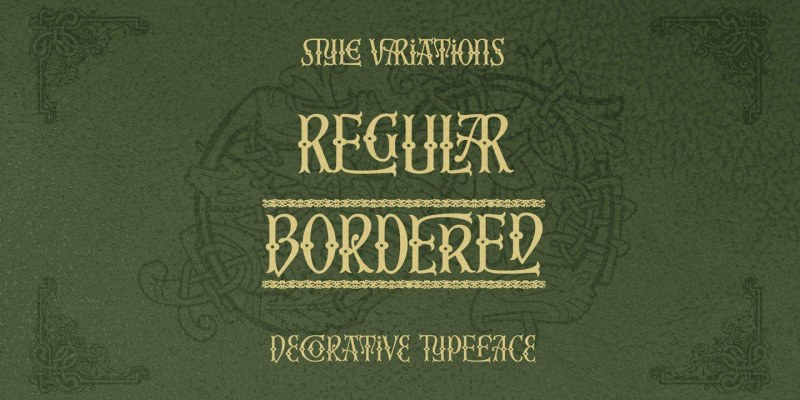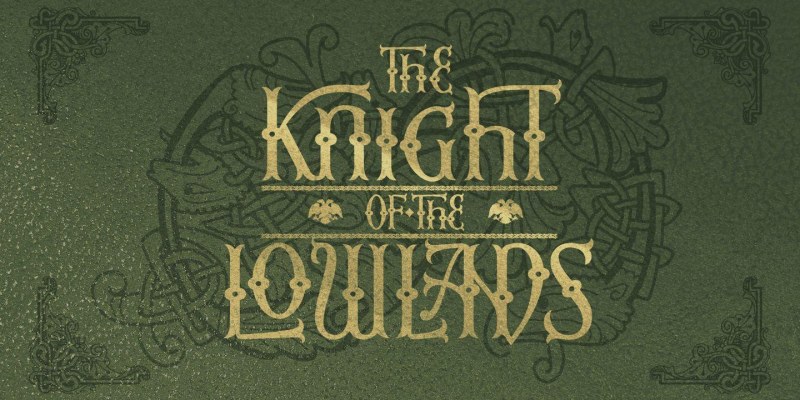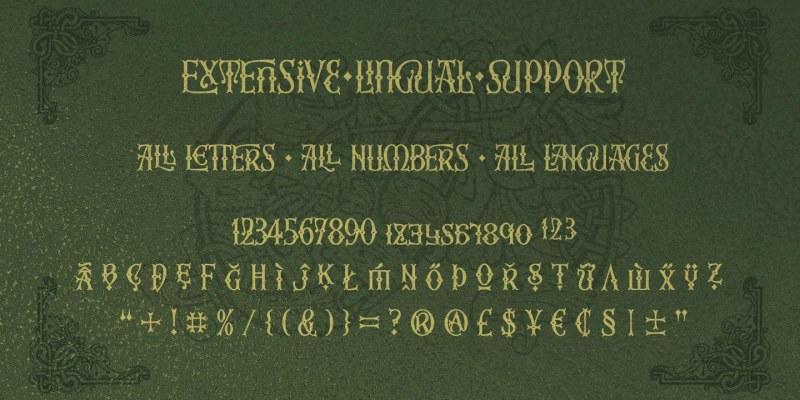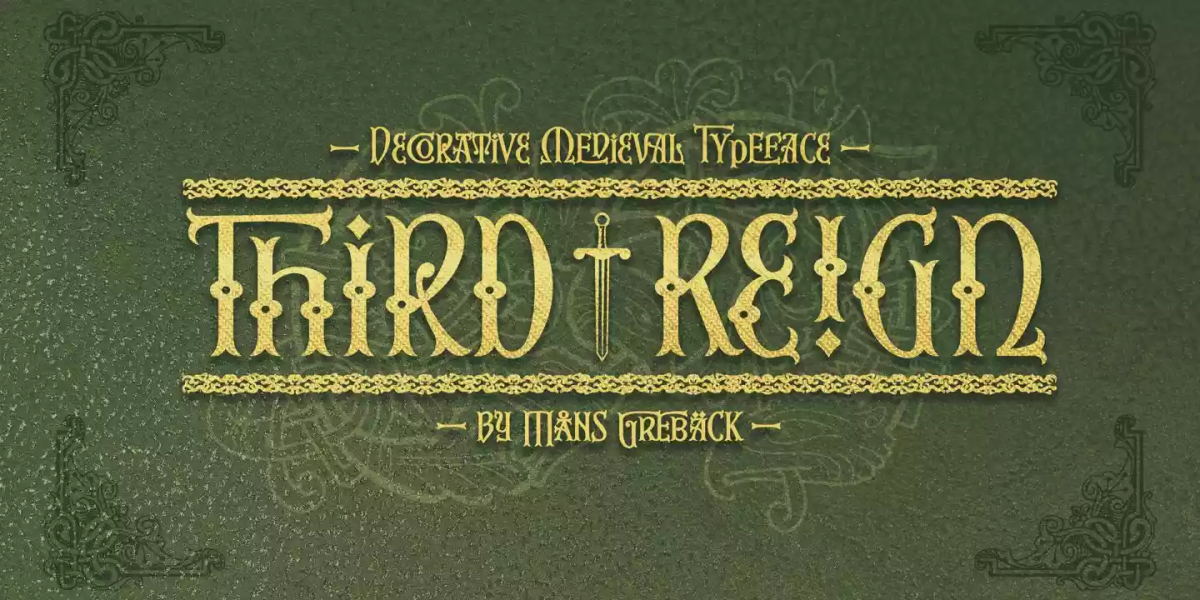
Third Reign Font Family
Third Reign is a decorative medieval typeface. With braids and pearls, this swirly typeface of extreme variability brings us to the golden times of epic knight sagas. Th…
Character set · 1745 glyphs
Third Reign is a decorative medieval typeface. With braids and pearls, this swirly typeface of extreme variability brings us to the golden times of epic knight sagas. Third Reign is the typeface of a Middle Age queen or a viking ruler. Use it for a Middle Ages game, a fantasy headline, or as a logotype for any historical theme. Using any modern software, the letters will automatically overlap and be embraced elegantly.
Where Third Reign Font Family works best
Complete brand systems
With multiple weights, Third Reign Font Family can carry a whole identity — logo, headings, body copy and captions — consistently across print and web.
Websites & apps
Families let you set hierarchy with weight instead of switching typefaces, which keeps interfaces fast and coherent.
Print collateral
Brochures, catalogues and business cards benefit from a family that covers display and text sizes.
What is Third Reign Font Family good for?